The best fonts pairing for 2023 nominated by Setproduct
2023 is set to be continued full of bold and creative fonts in graphic design. We are constantly looking for the latest and greatest font pairings to enhance our visuals. Two of the most popular picks for font pairings are Spline Sans and Outfit.Spline Sans is a modern sans-serif typeface with a unique and eye-catching aesthetic. Its geometric shapes and rounded edges create a unique look that is perfect for branding, print materials, web & apps design. Spline Sans is nicely accessible and easy to read. Fits ideally to use as a body text.
Outfit is a geometric sans-serif typeface with a modern and sophisticated look. Its strong and bold shapes make it a great choice for headers that need a bit of a punch. This trendy neo-grotesk font is crafted perfectly, well shaped, and always on our UI design radar.
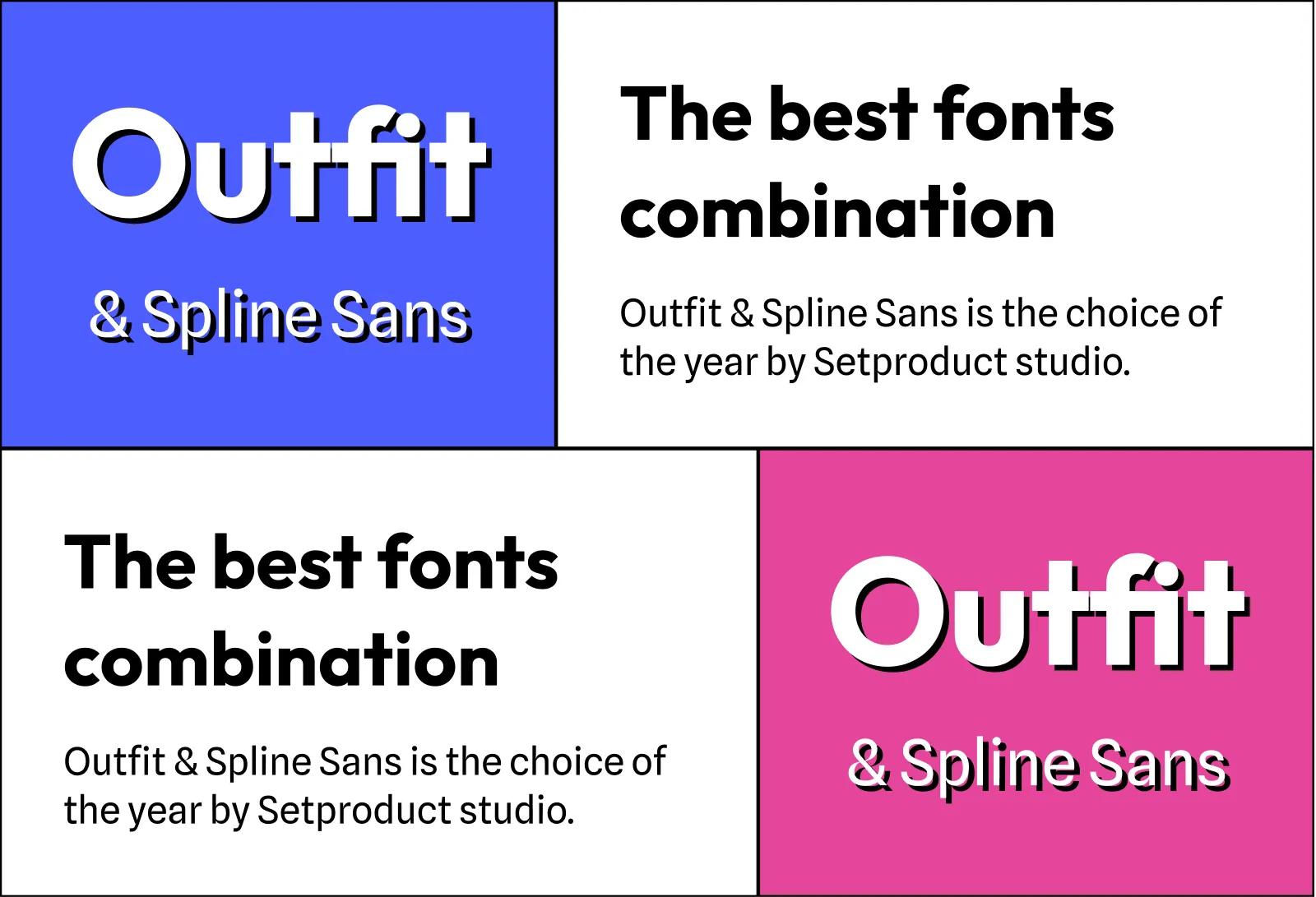
These two fonts work together very well, creating a strong and modern look that is perfect for any graphic design project. They are free fonts, available at Google Fonts and licensed as OFL. This makes them the perfect choice for any designer looking to create an eye-catching design without breaking the bank.
Let's see how it works for the website, dashboard, mobile app
Using these two fonts together can add a modern and sophisticated look to any design project. Whether used for branding, print materials, web & apps design, these two fonts will make any project stand out from the crowd. They are versatile enough to be used in a variety of different design styles, making them the perfect choice for any designer looking to create a modern and stylish look.
We've picked various screens from our impressive Figma templates collection, replaced fonts with Outfit & Spline Sans, added some visual smoothness and here is how universally this fonts pair looks everywhere:
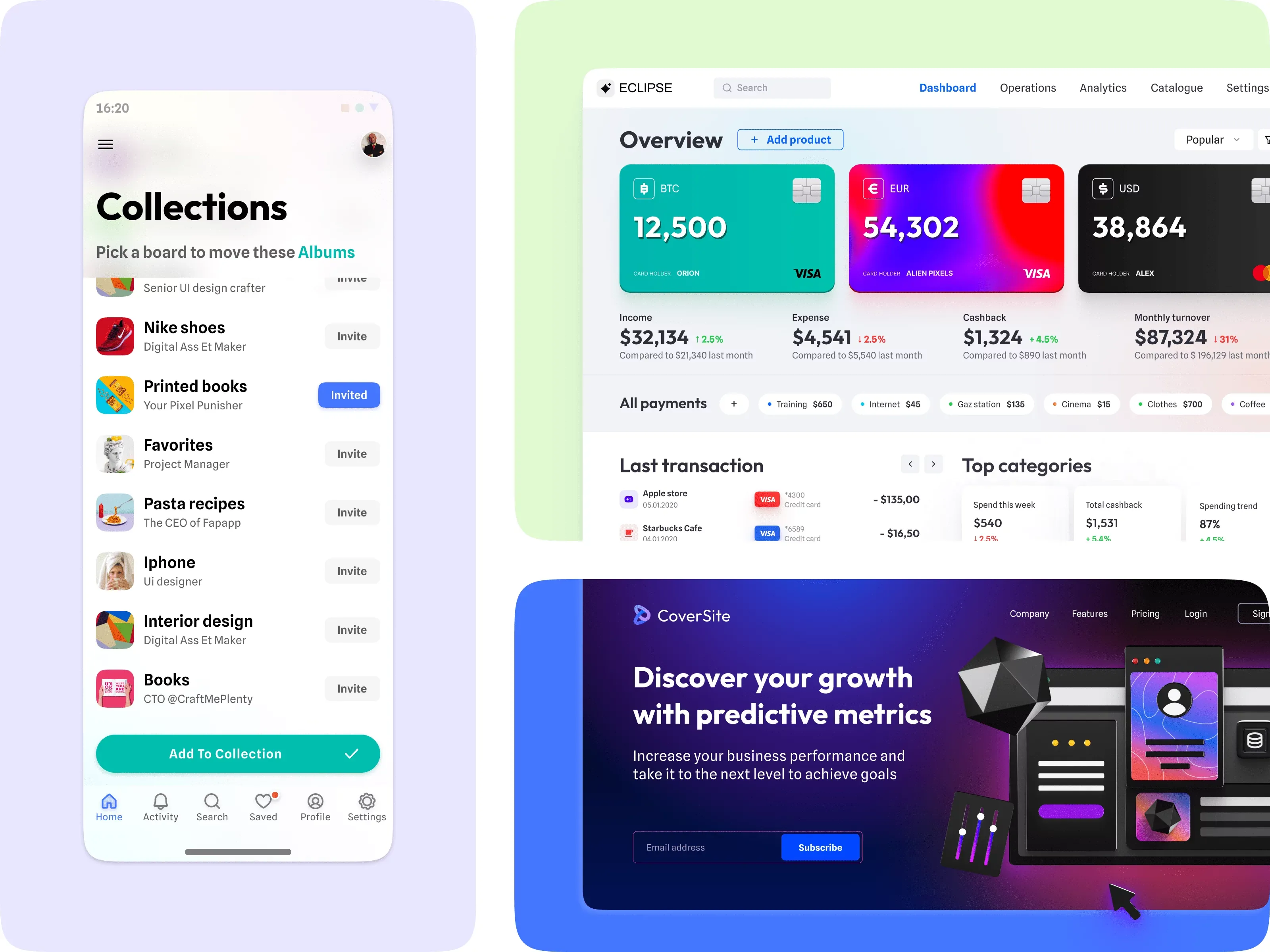
In conclusion, font pairings are a great way to create a unique and eye-catching look for any design product. We've nominated Spline Sans and Outfit are two of the best font pairings for 2023 and can recommend to use in a variety of different design tasks. They are free and available at Google Fonts, making them a great choice for any designer looking to create an eye-catching design without breaking the bank.